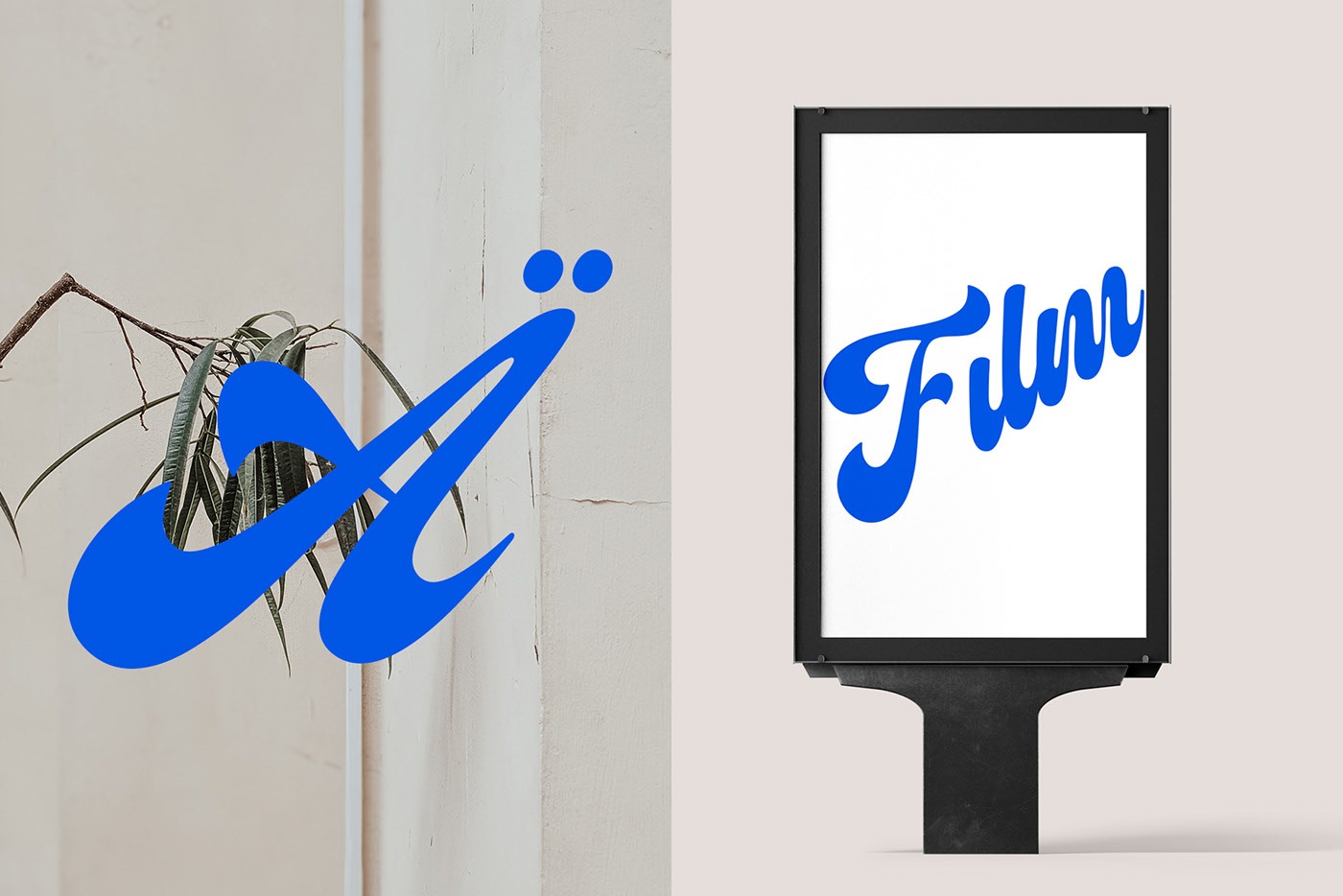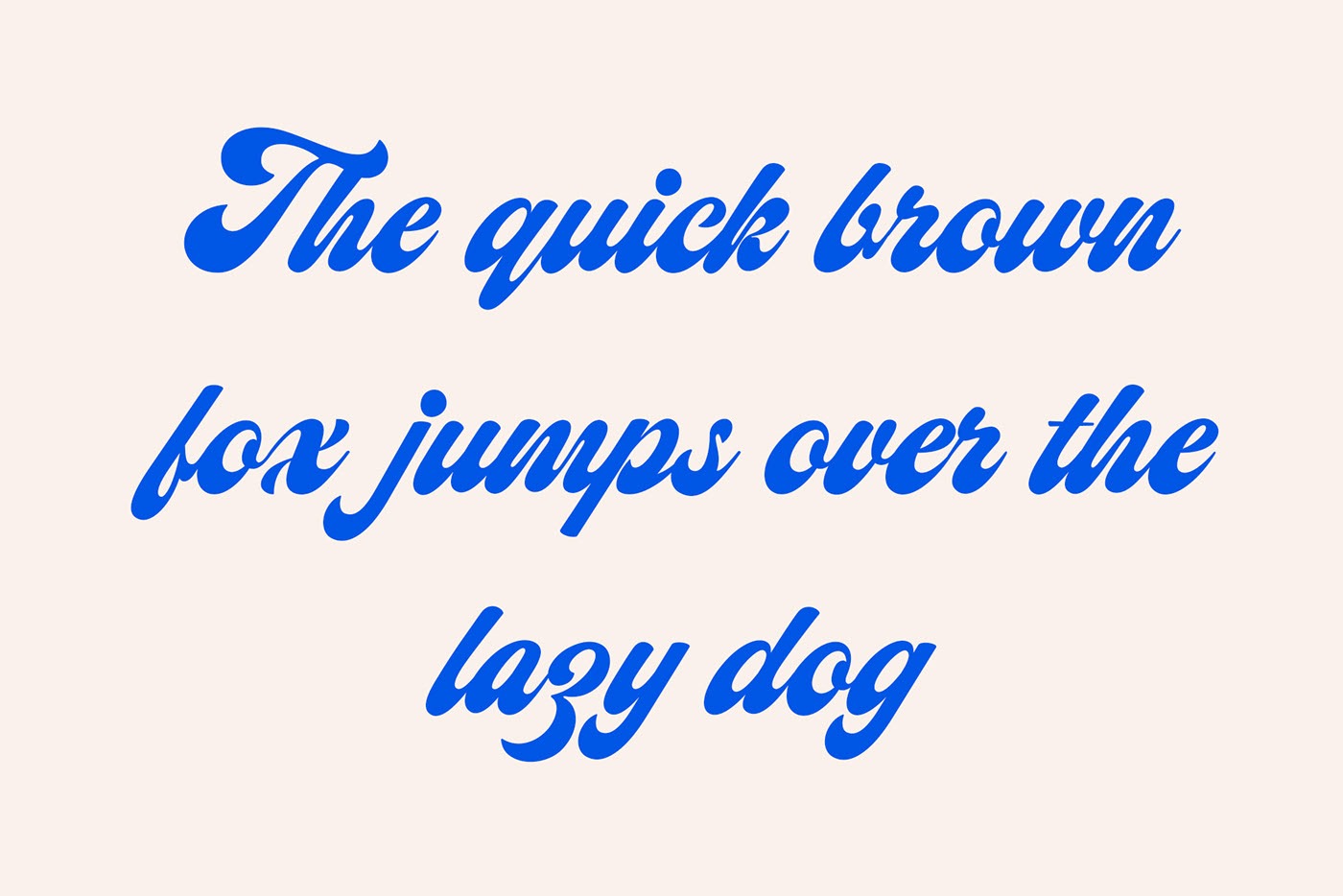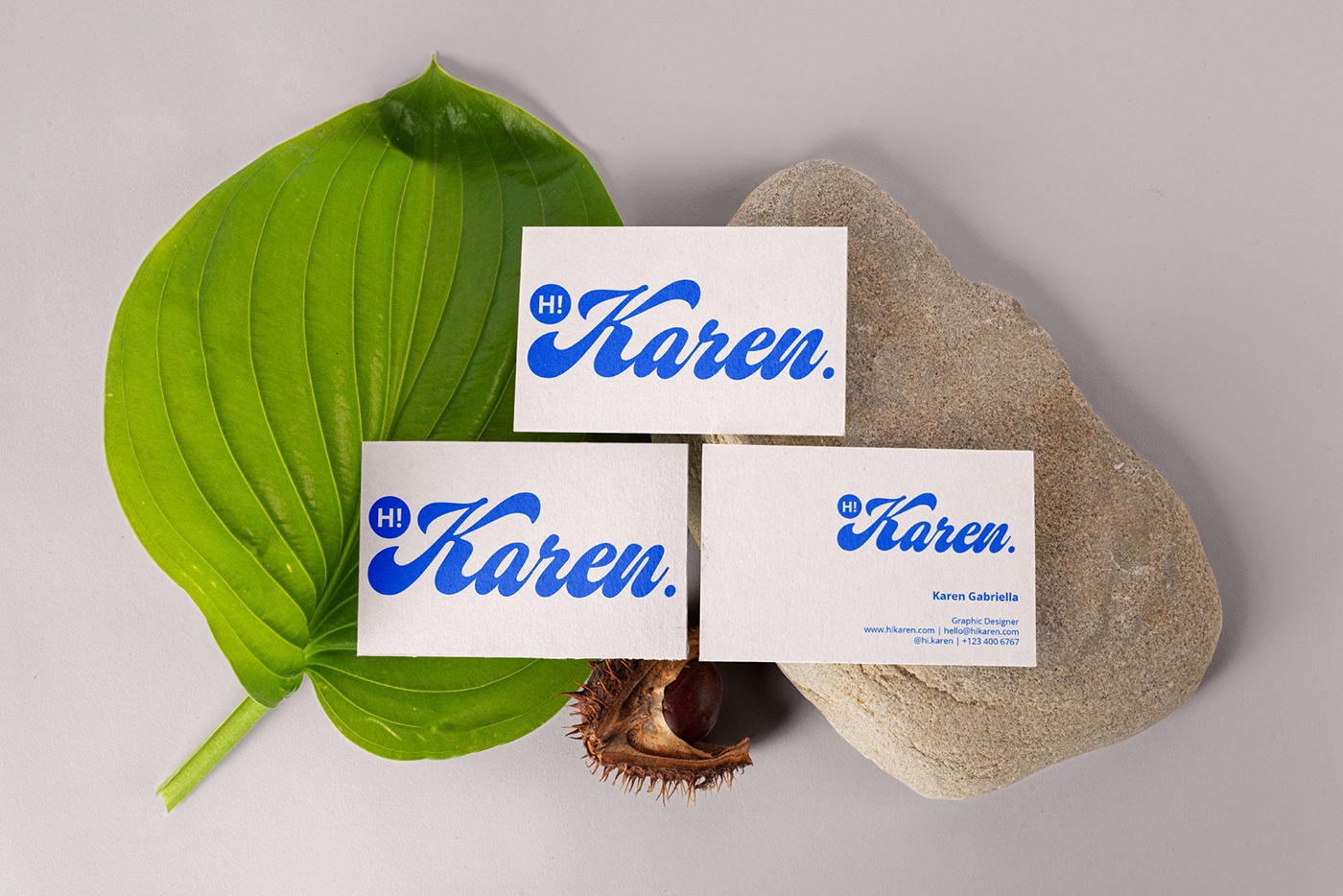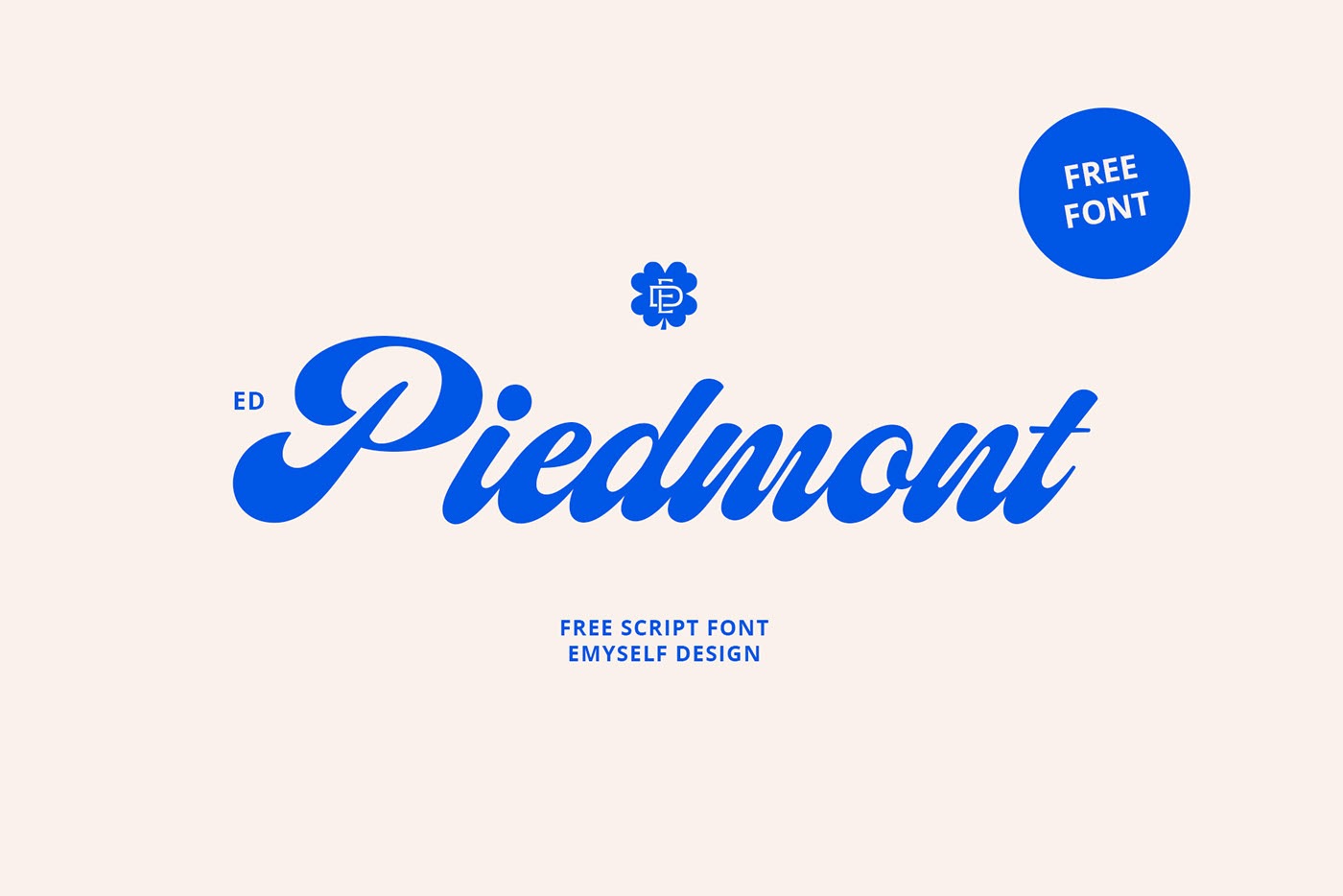
ED Piedmont Font
ED Piedmont Script Font
If you’re looking for a vintage typeface to attract your audiences or customers then we’ve got the font for you! Medang is a retro script font crafted & designed by emyself design. This font is equipped with uppercase, lowercase, number, symbol, ligature and multi-language support. Piedmont is perfect for your work such as logo design, branding, cards, etc.